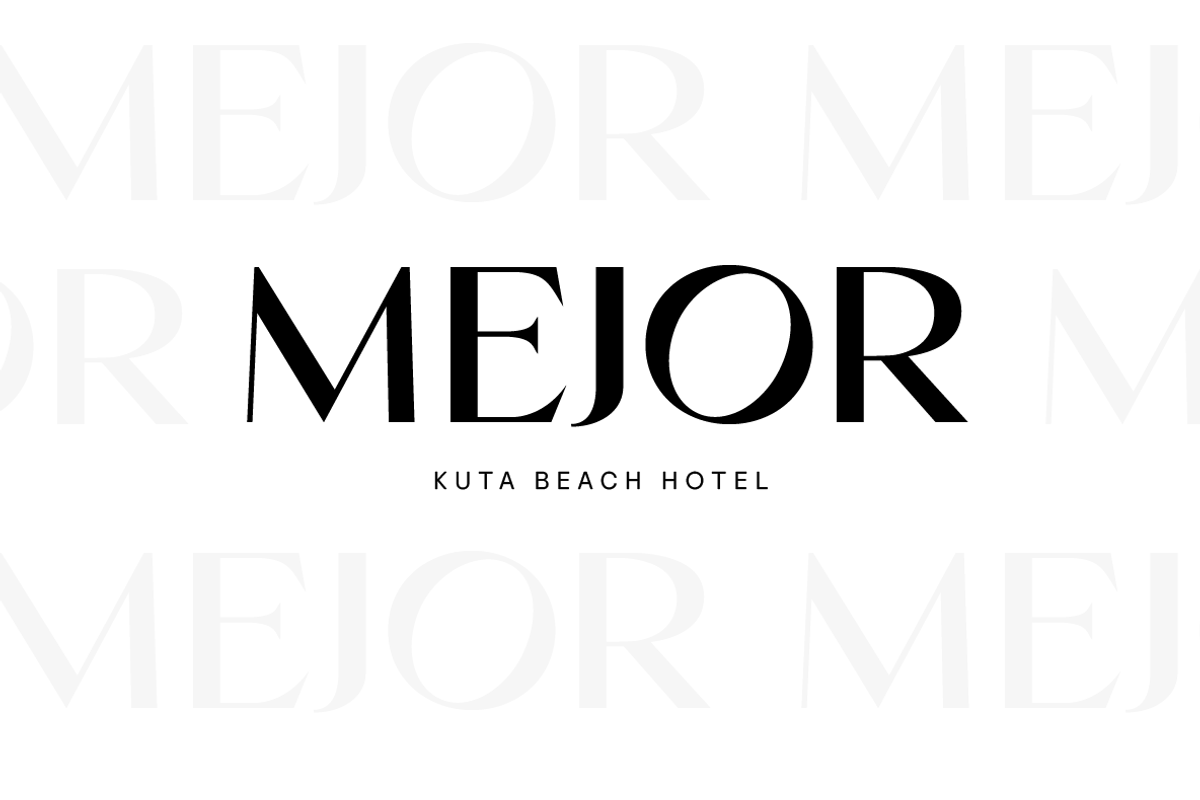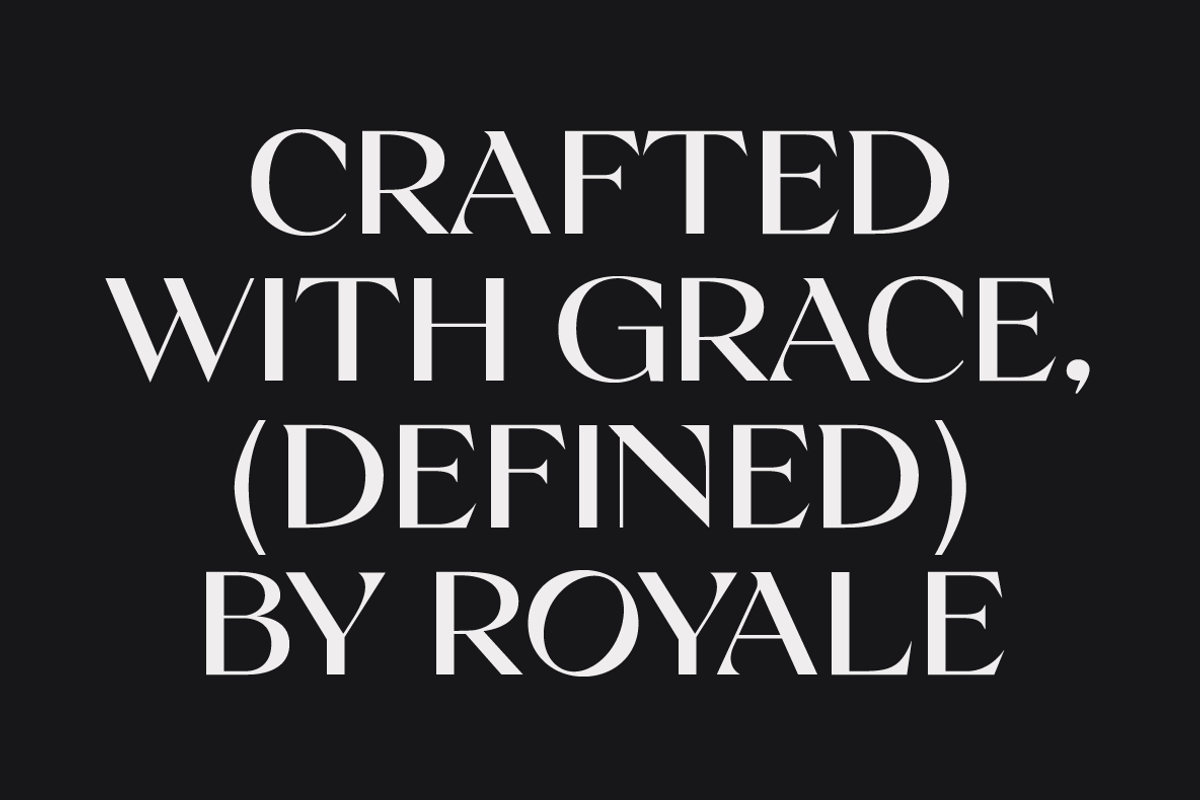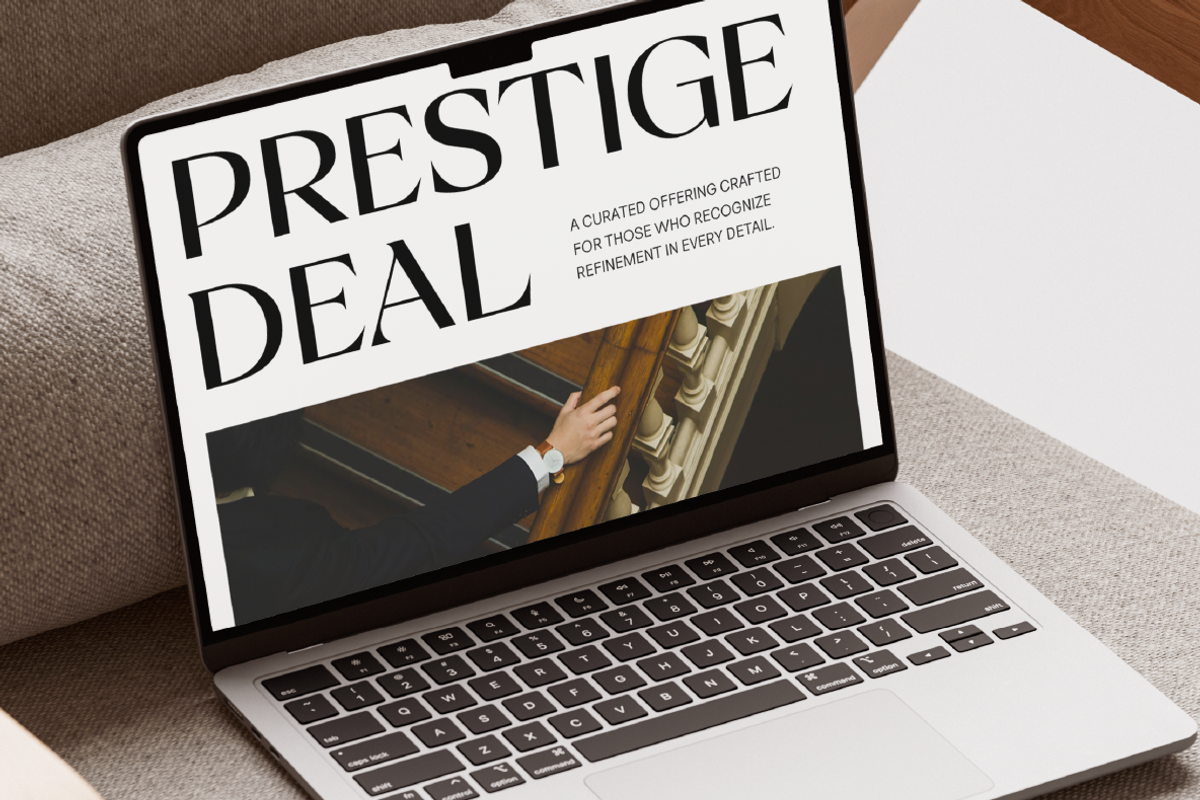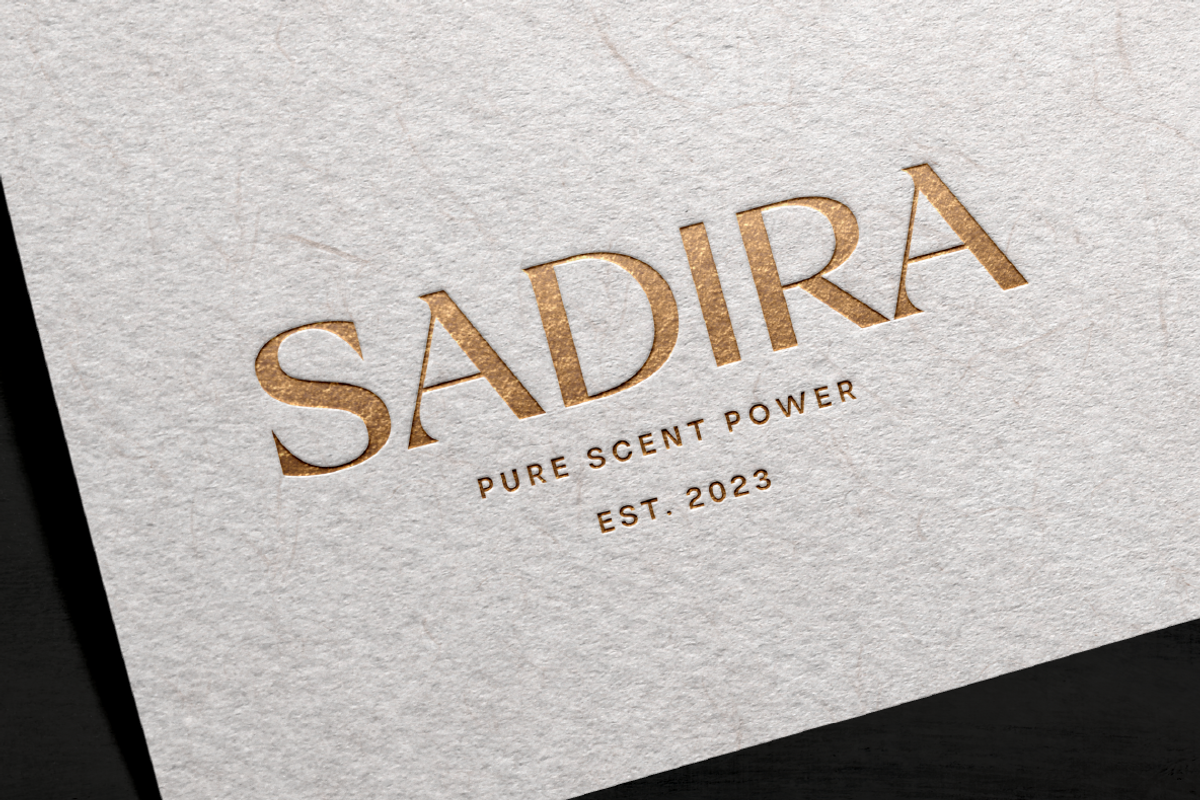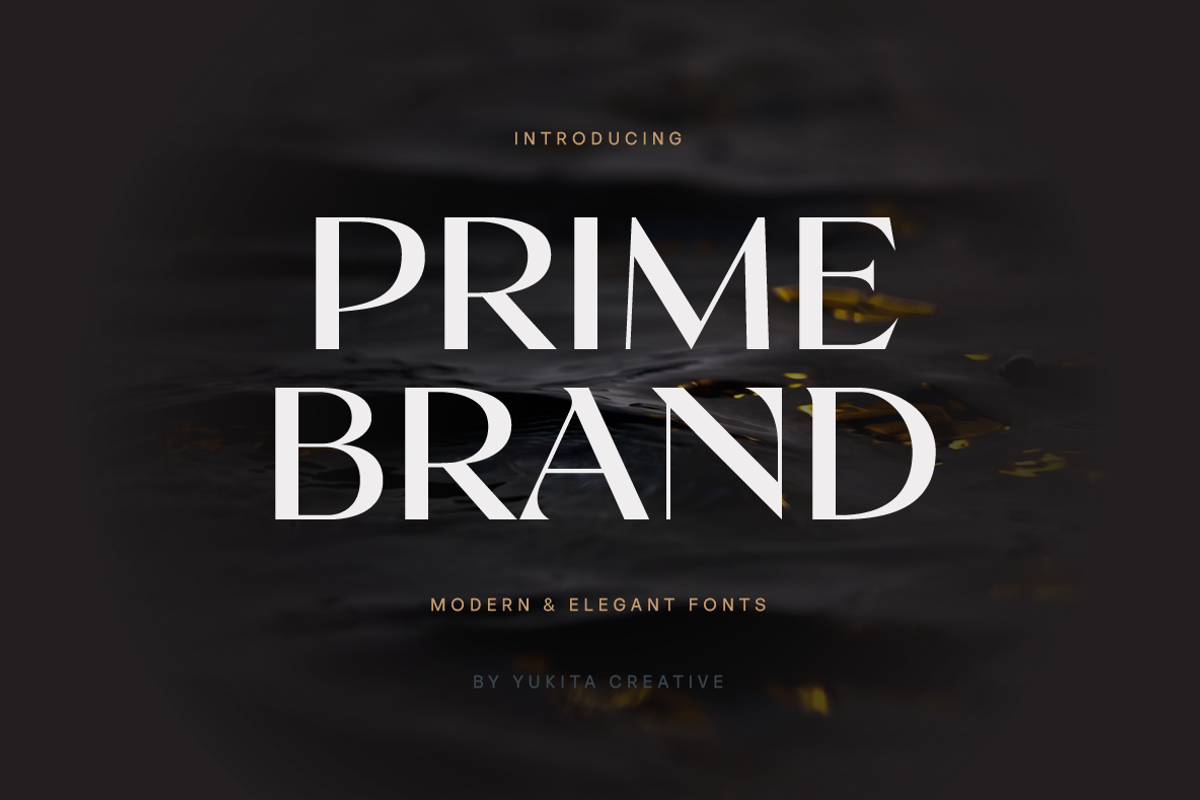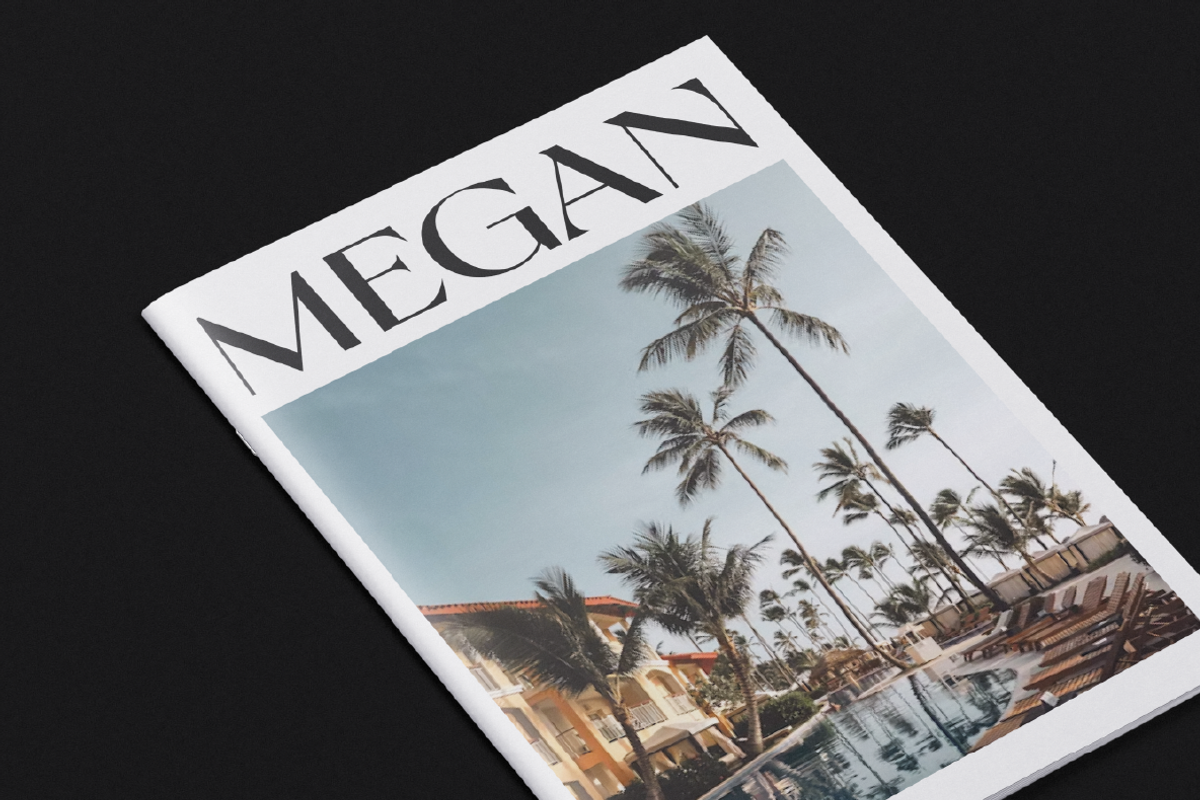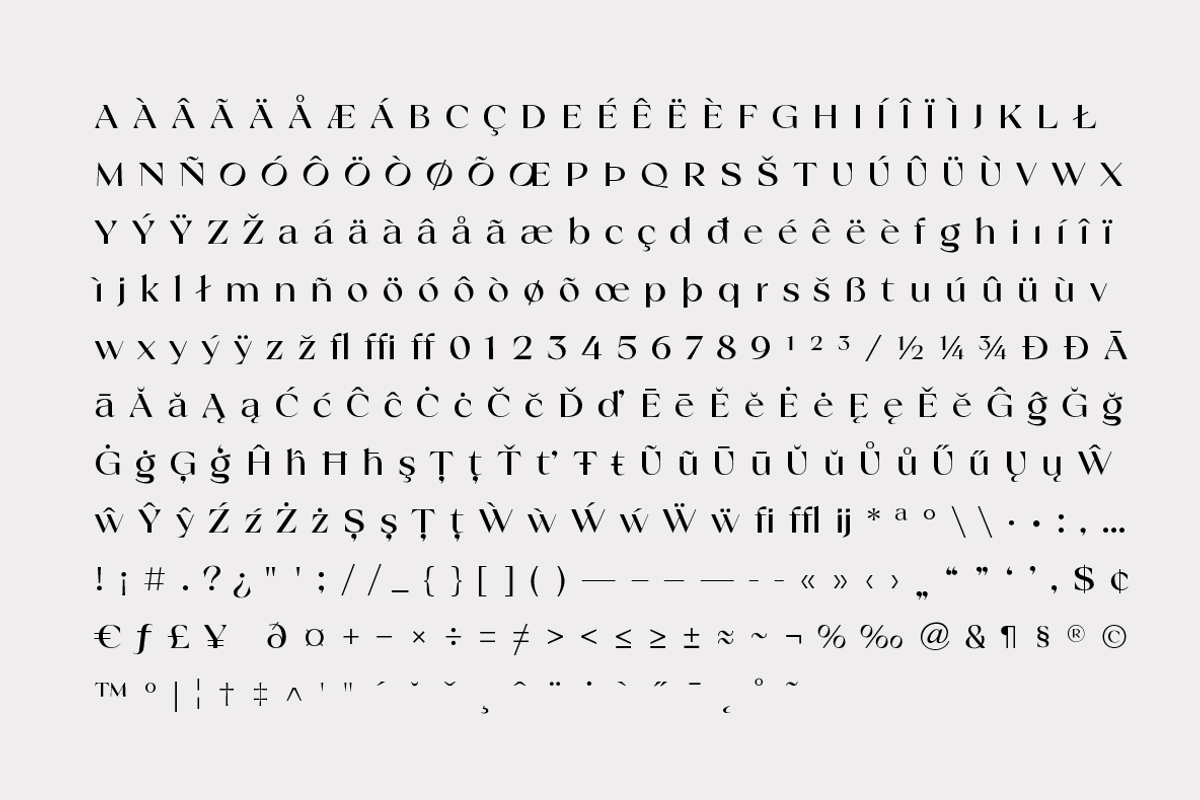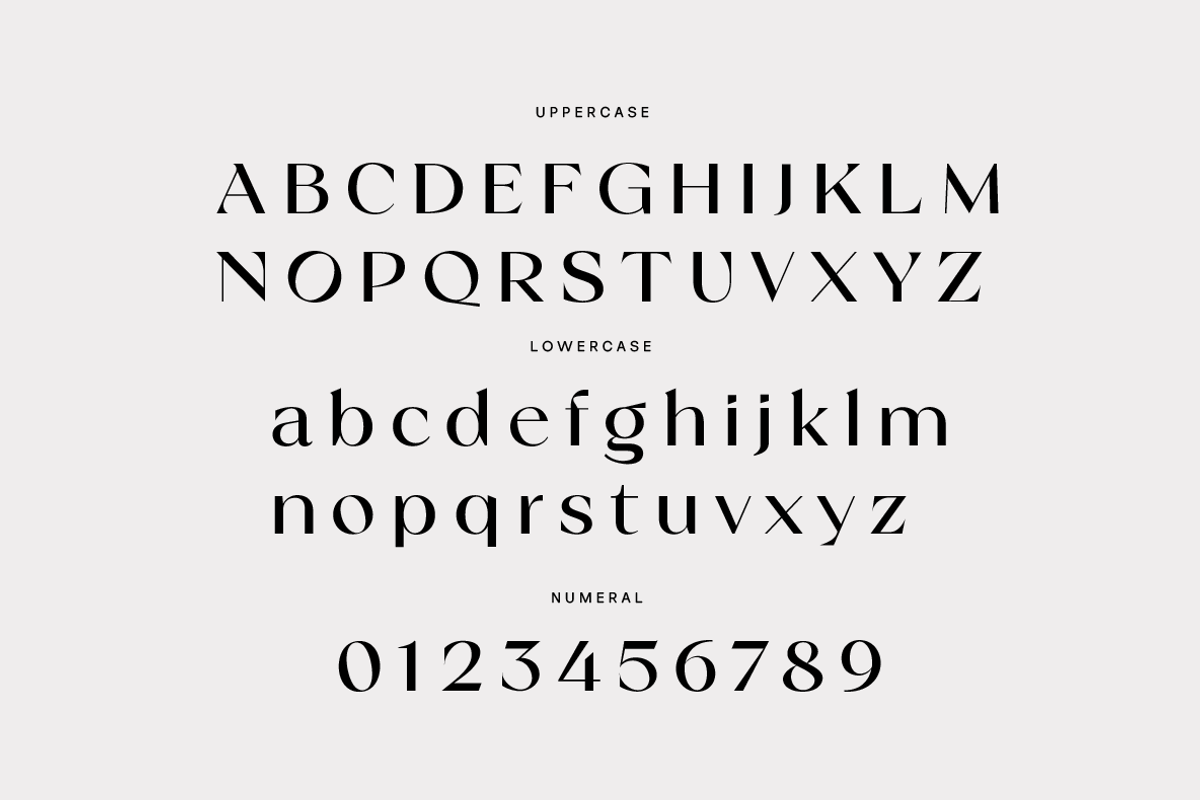
Prime Brand – Elegant Display Font
Prime Brand is a modern display font crafted to bring a refined and elegant presence to any design. With its clean lines, balanced proportions, and minimalist aesthetic, this typeface is perfect for creating a strong visual identity that feels both contemporary and timeless.
Designed with simplicity and sophistication in mind, Prime Brand delivers a sleek and professional look that works beautifully across a wide range of creative projects. Whether you're building a luxury brand, designing a logo, or crafting stylish editorial layouts, this font provides the perfect balance between modern clarity and elegant expression.
Ideal for branding, logos, packaging, fashion labels, websites, social media, magazines, and high-end visual identities, Prime Brand enhances every design with a subtle yet impactful character.
- Modern display font style
- Elegant, simple, and minimalist design
- Clean and well-balanced letterforms
- Perfect for luxury and premium branding
- Suitable for logos, packaging, editorial, and digital design